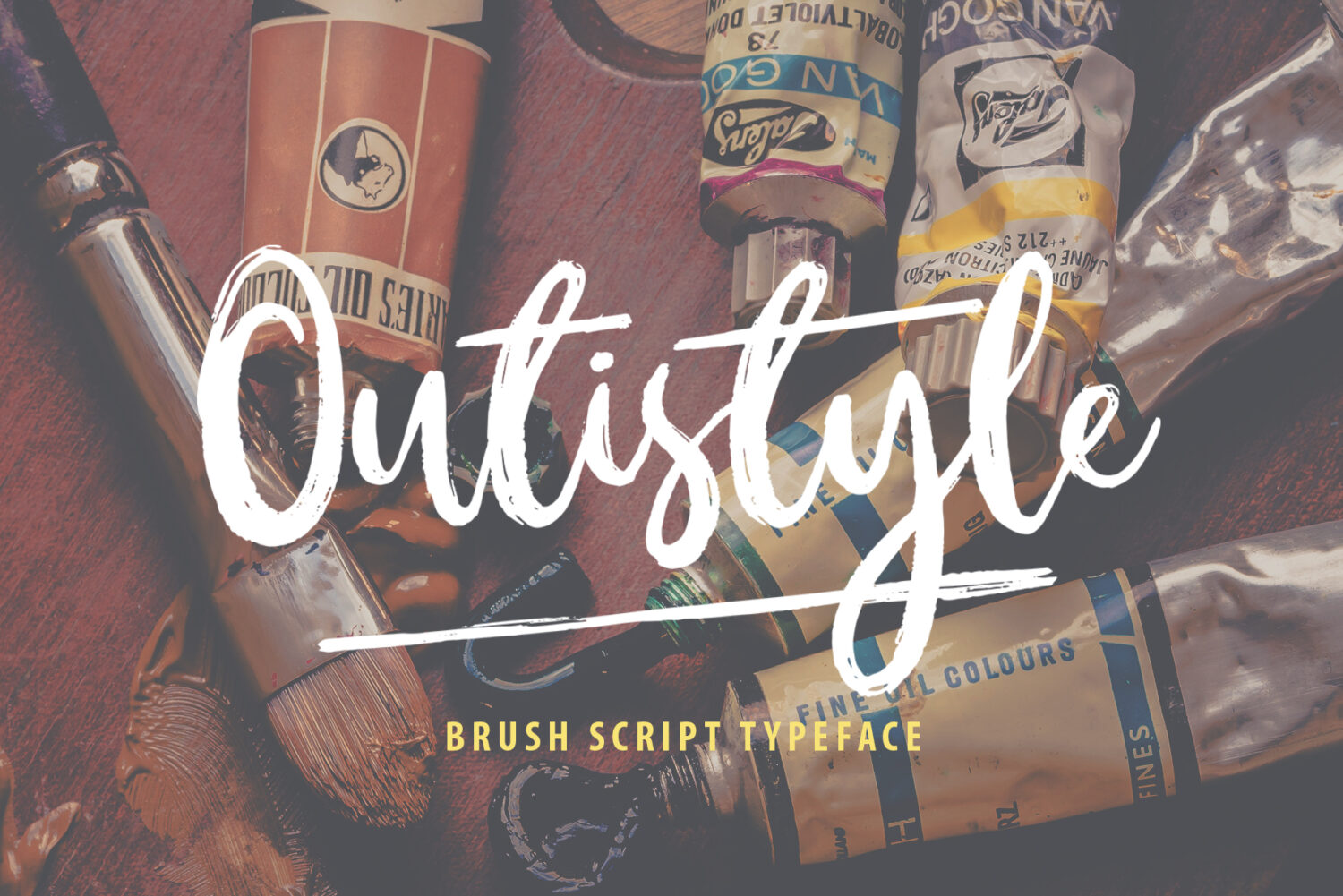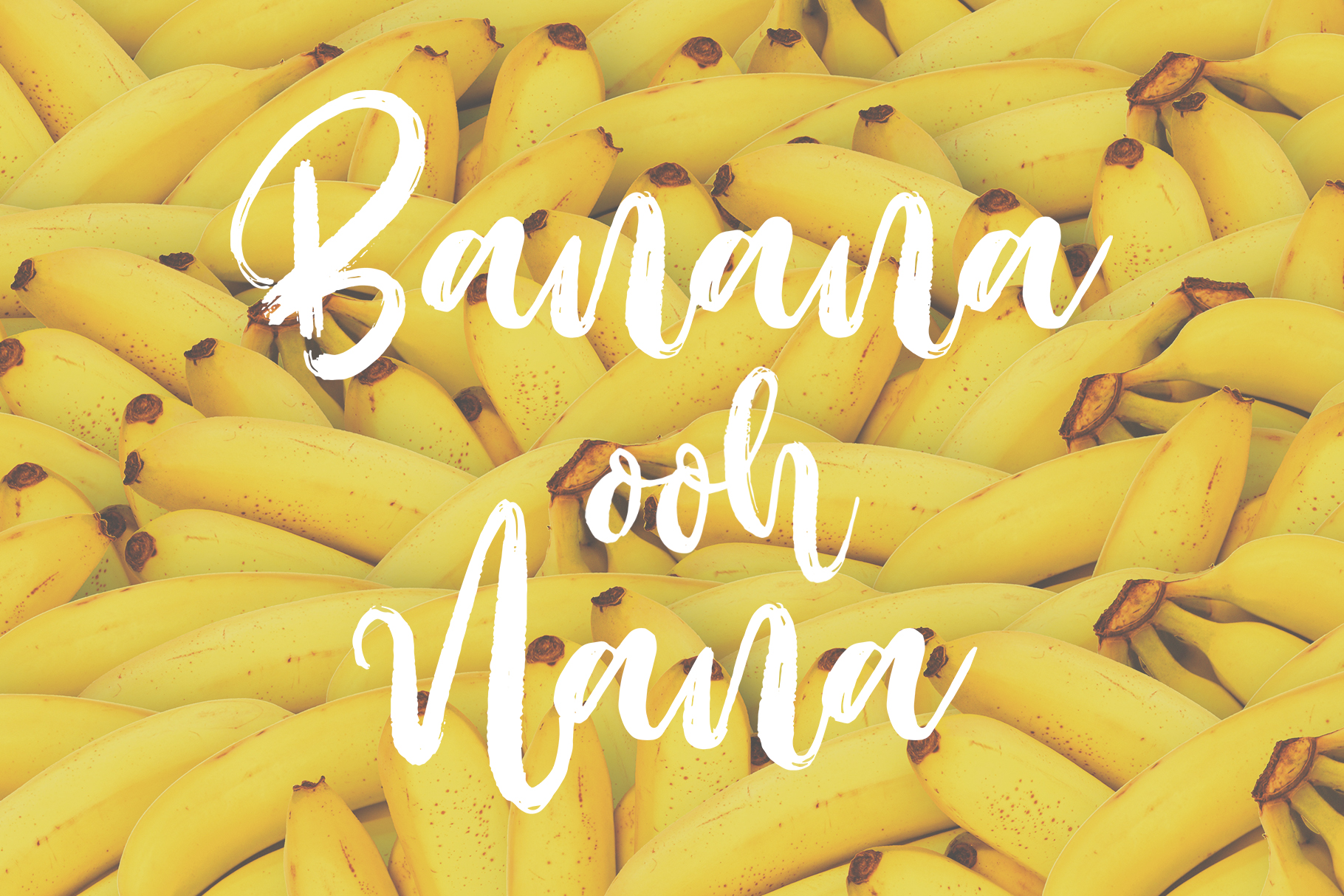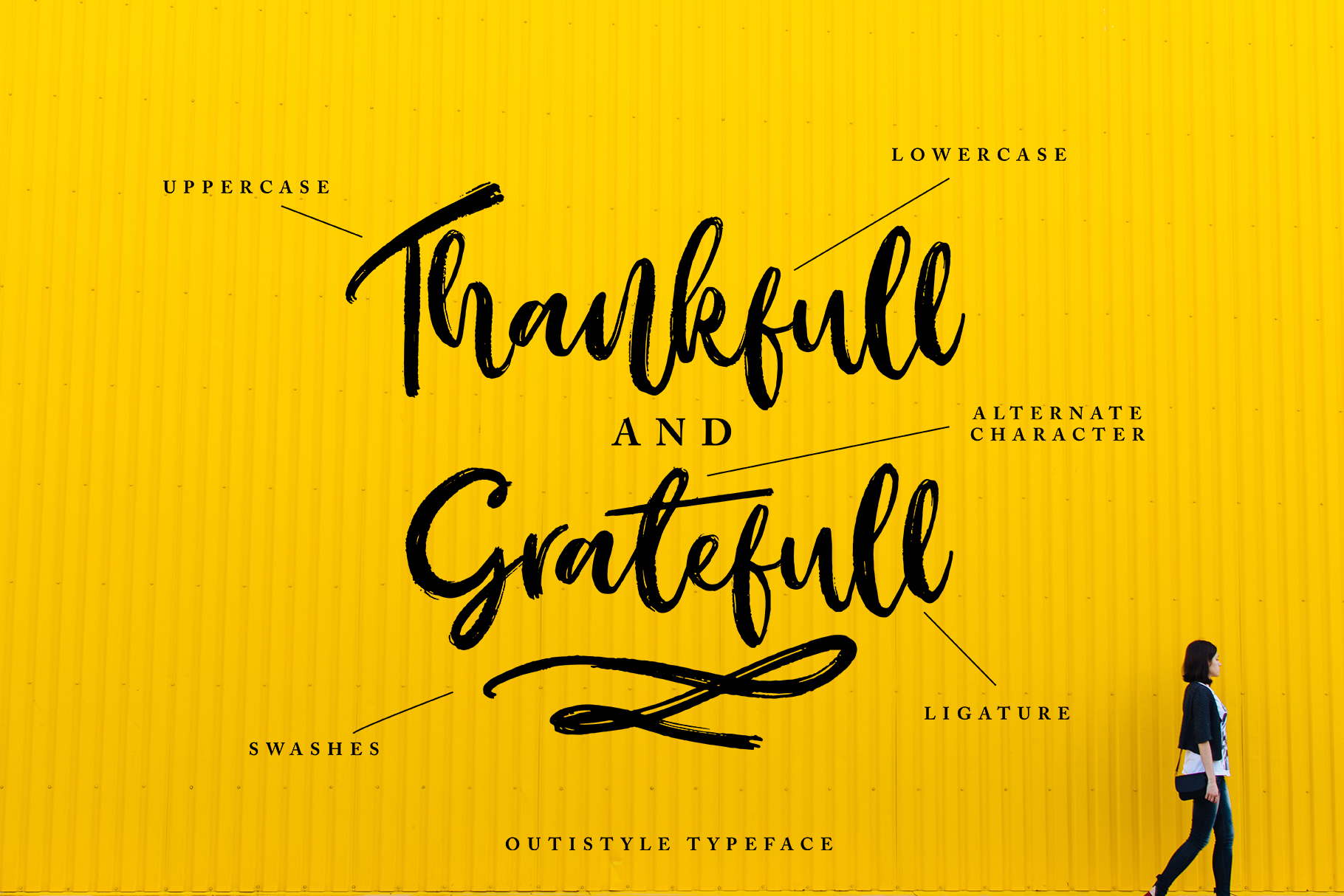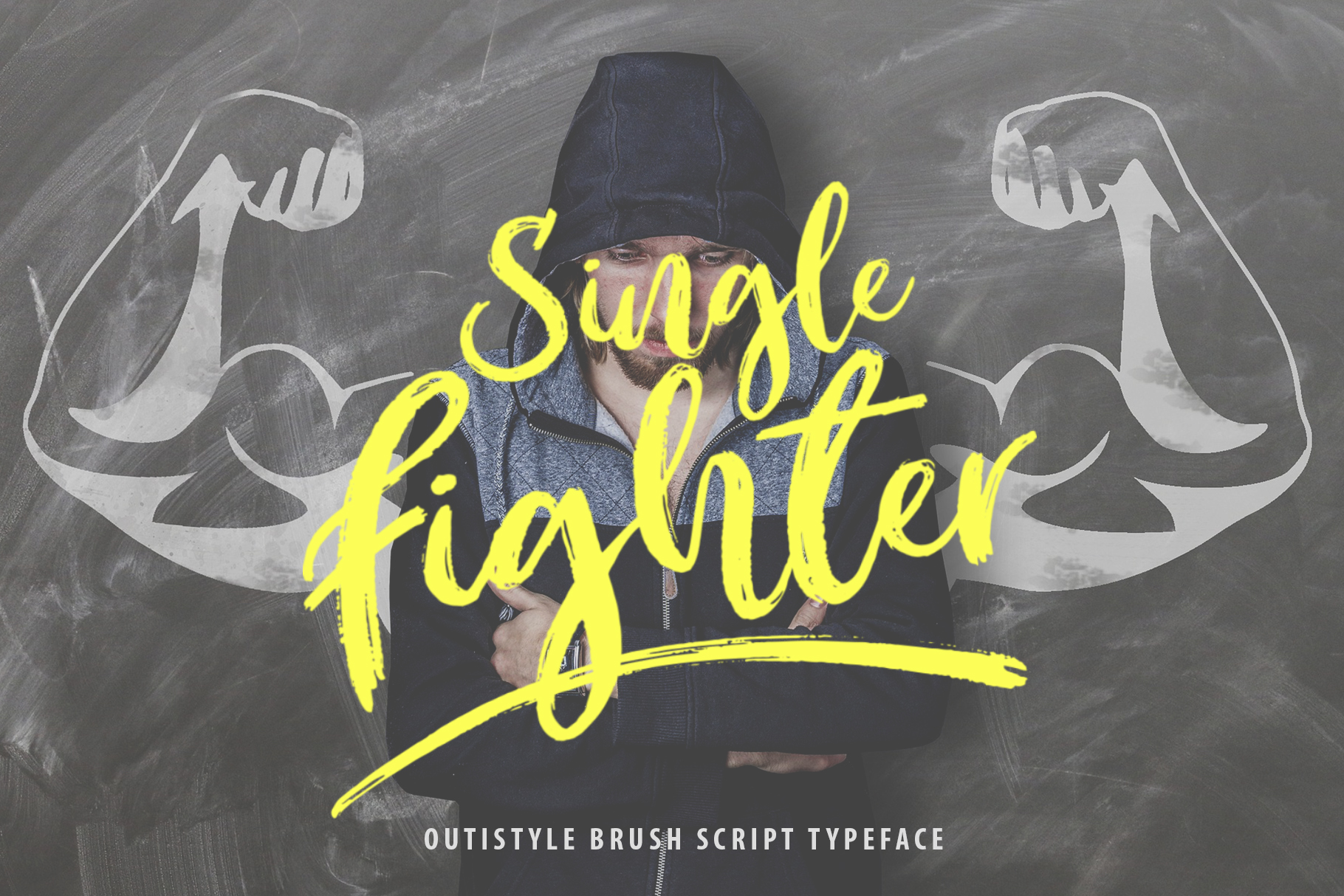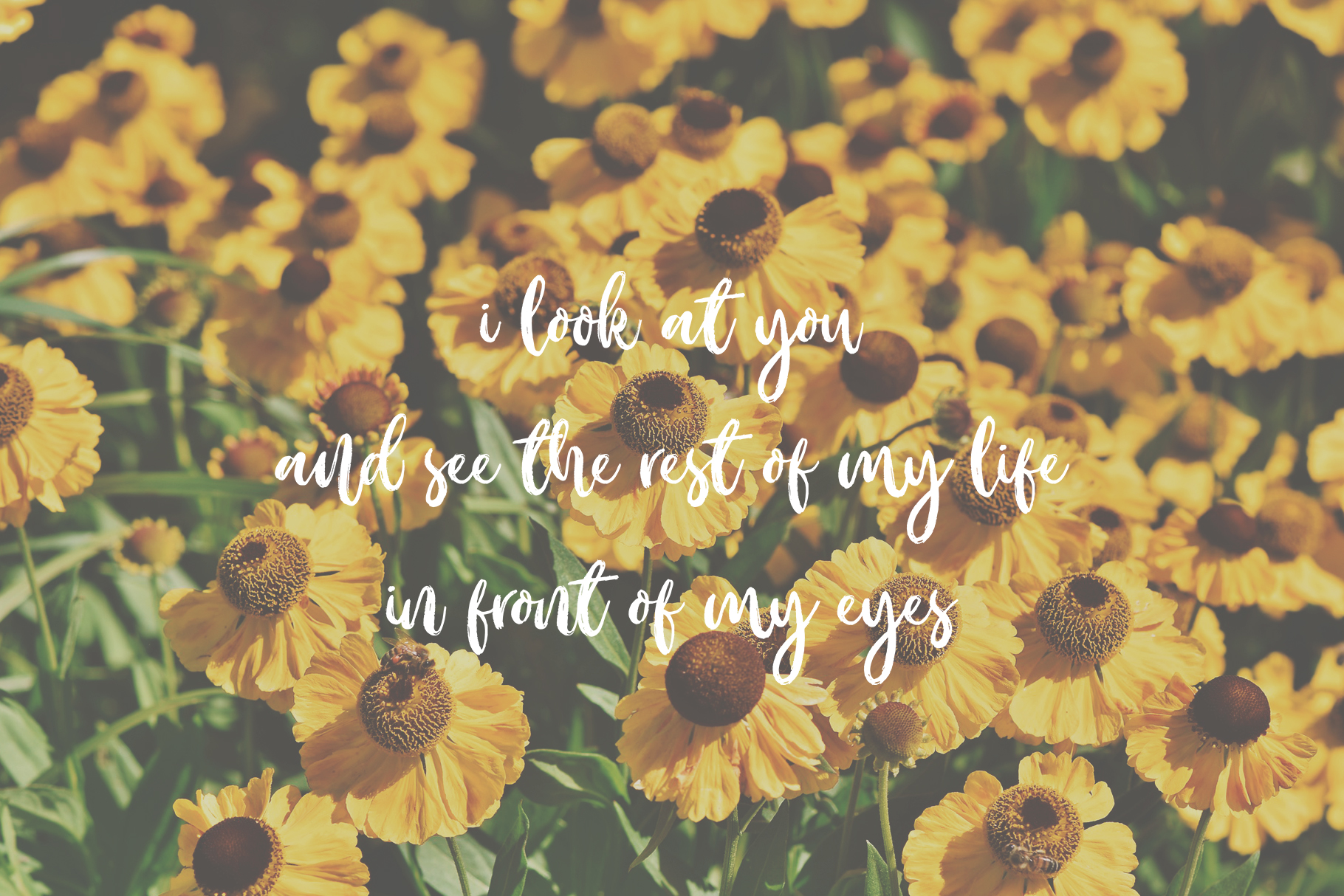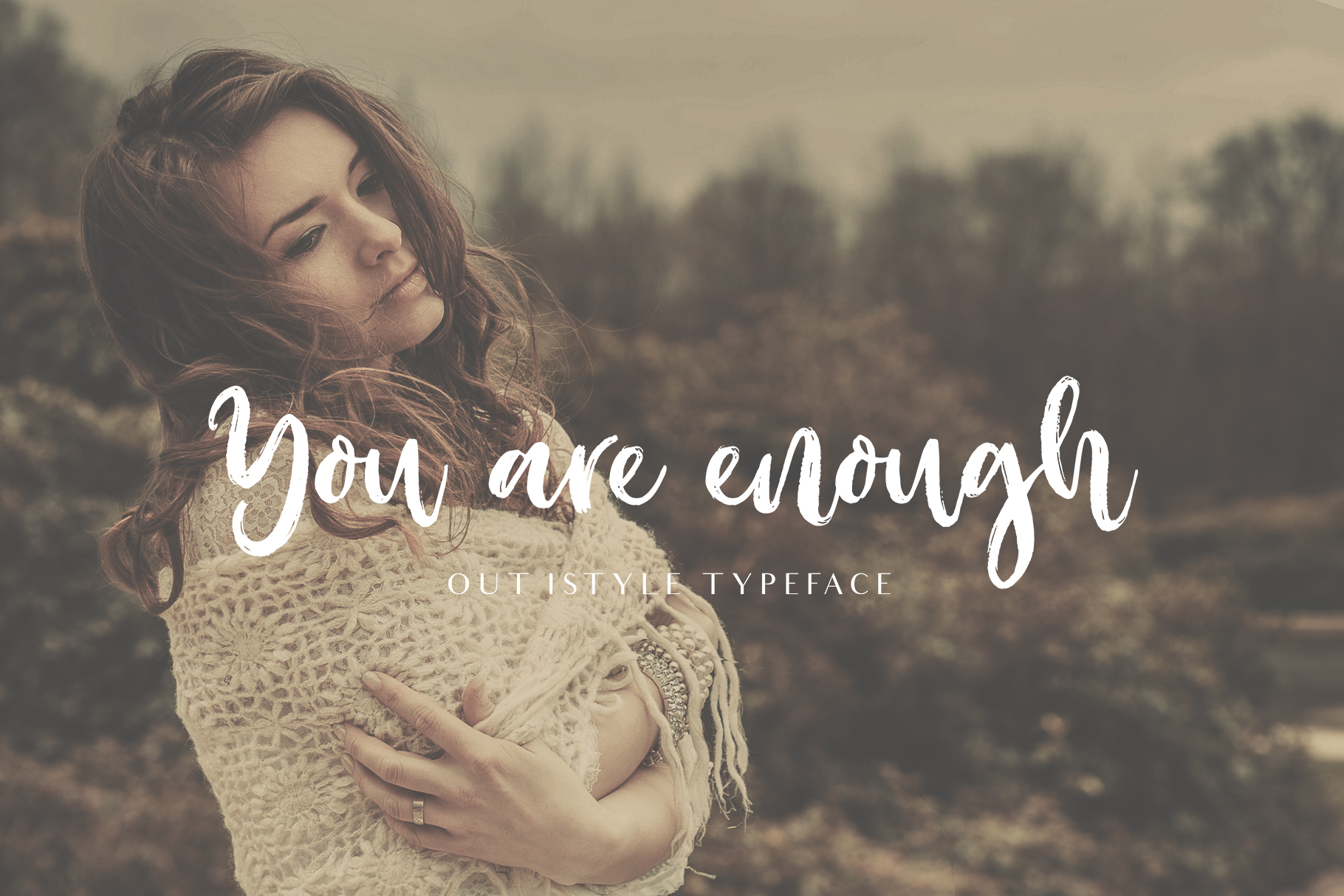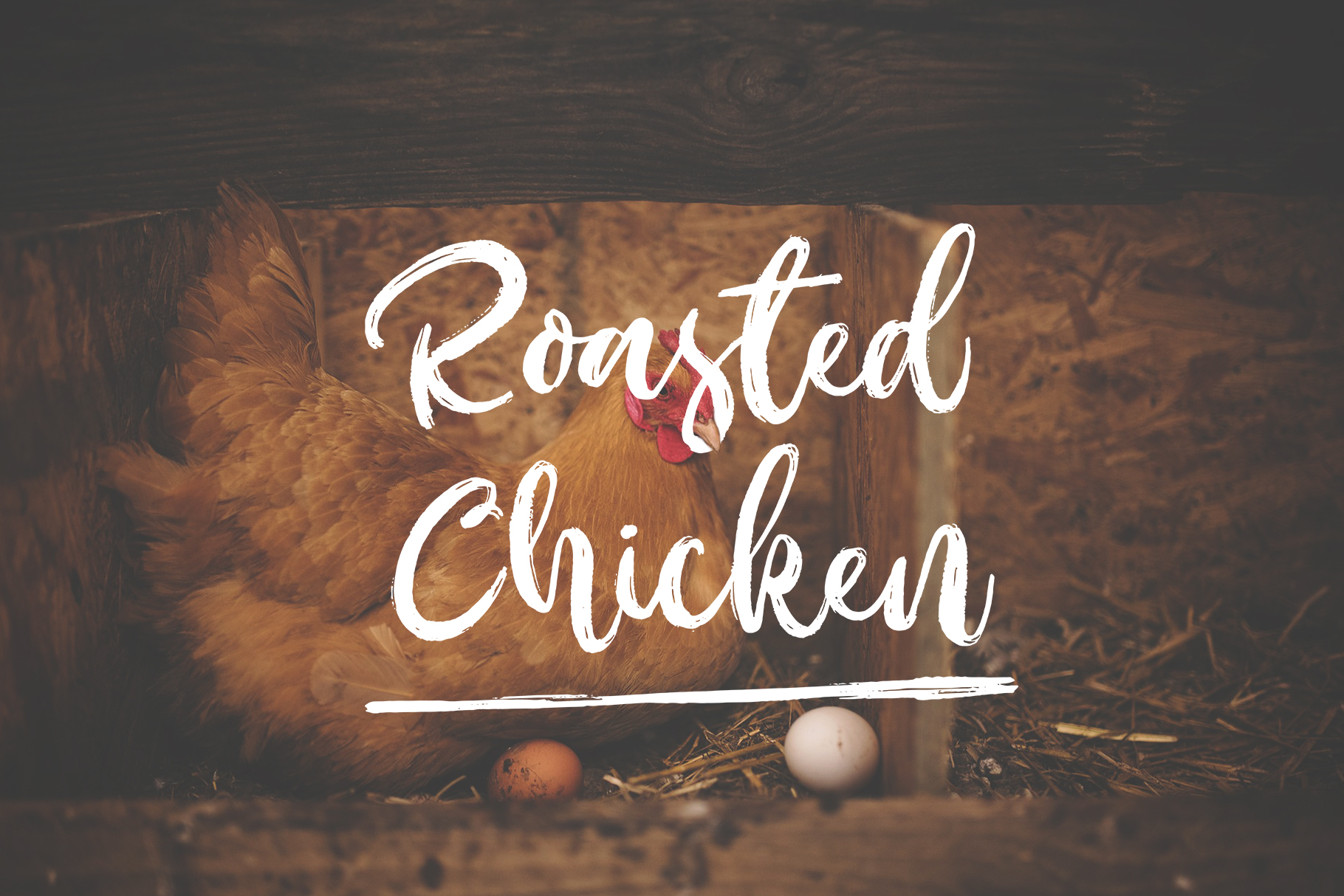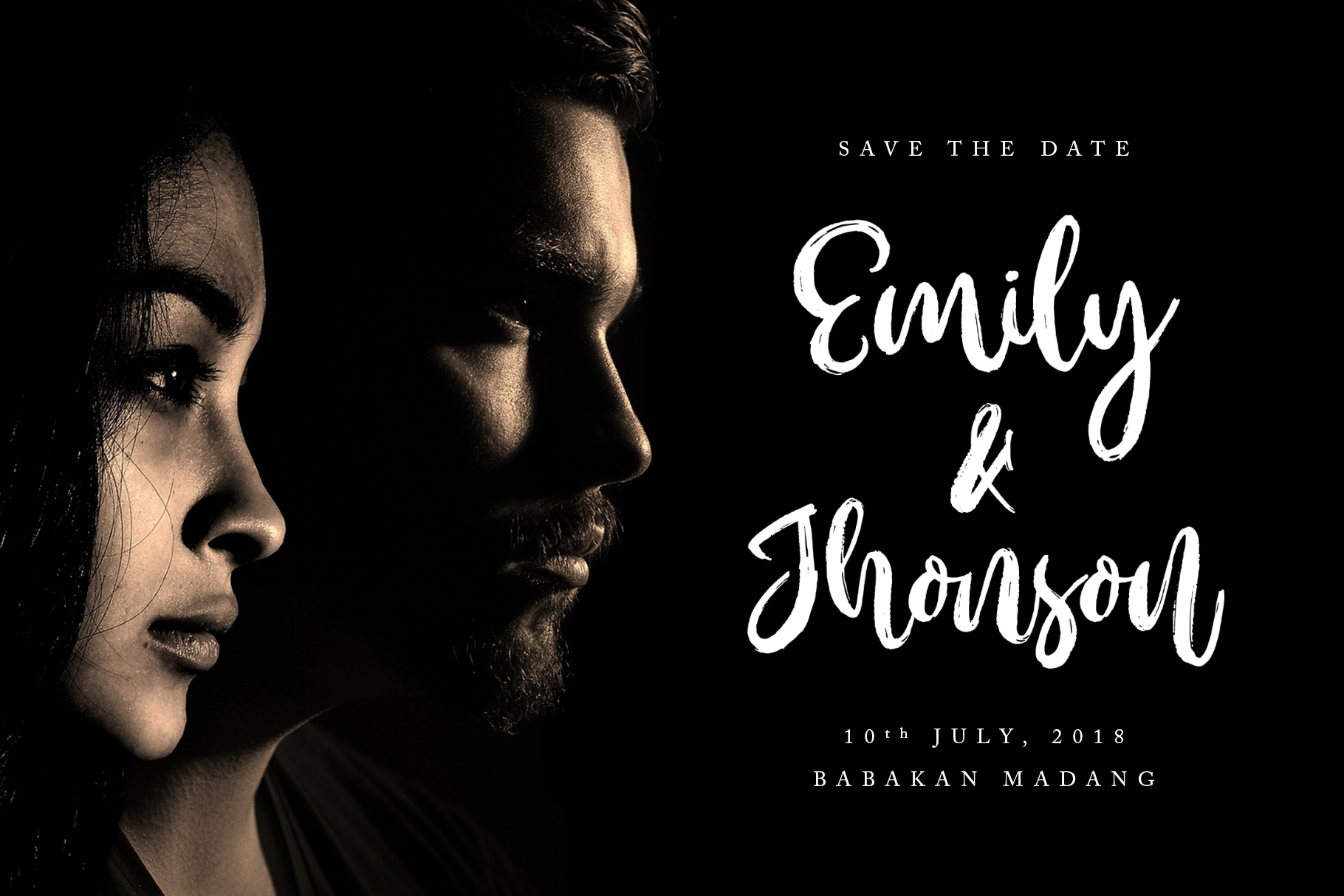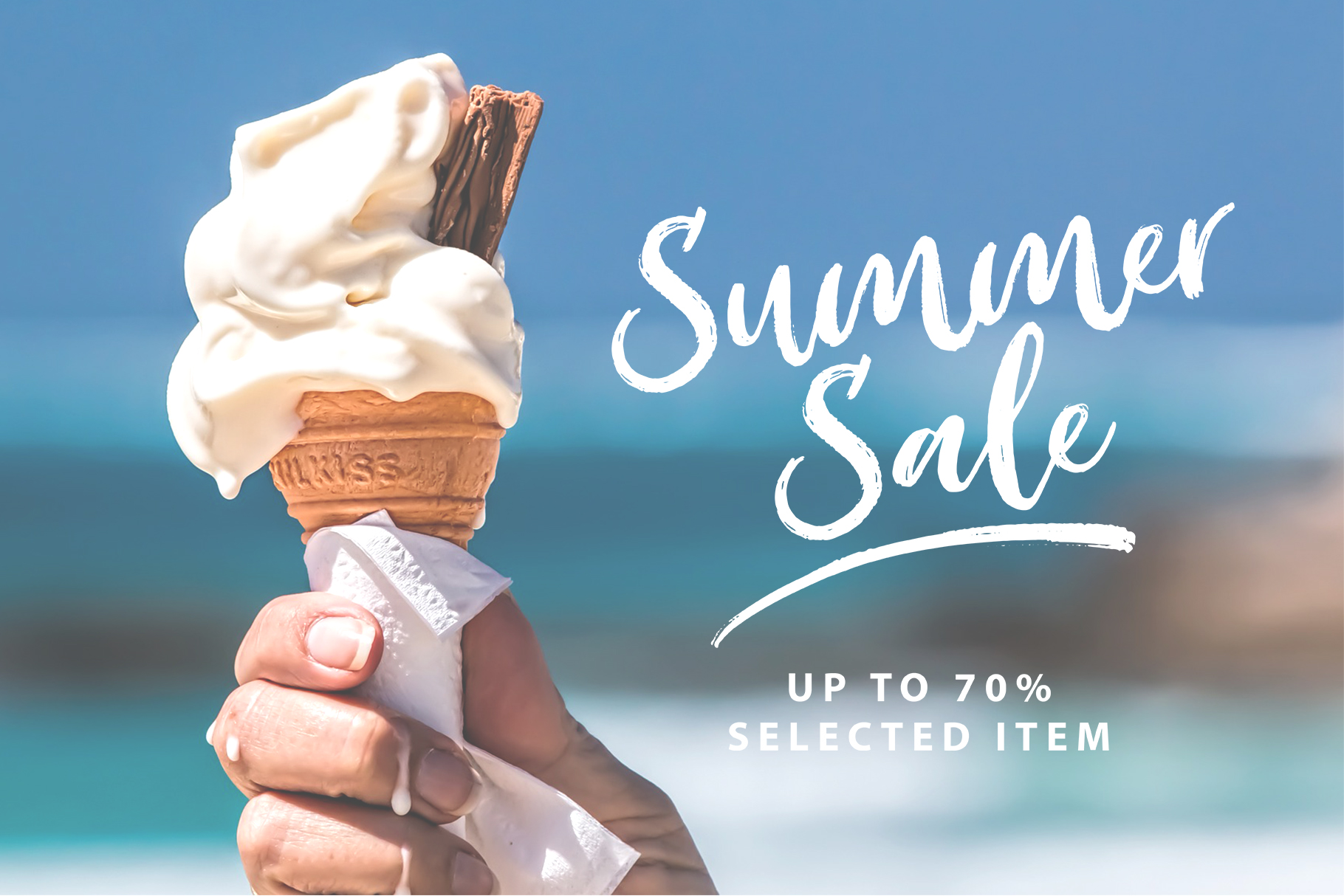
Outistyle Free Font
Outistyle is a very textured brush script font inspired by modern calligraphy style. It makes the font be very fun, playful, and brave at the same time. Outistyle comes with one font style, some alternate character, and swashes, so you can combine it’s all and make any design you want, it’s very fun. Suitable and applicable to create typography design, Christmas card, branding, logos, product packaging, invitation, quotes, t-shirt, label poster, etc. This free typeface was designed by talented Andika Setiawan. If you like it don’t forget to check out the full version.